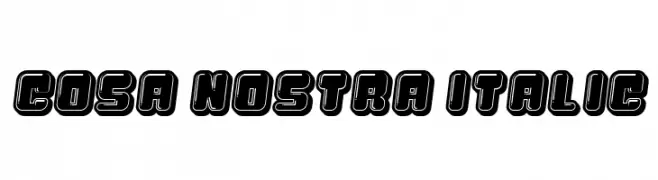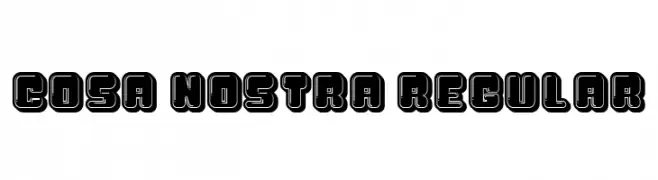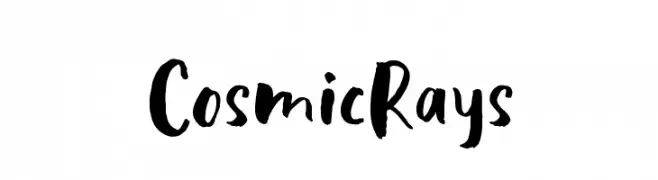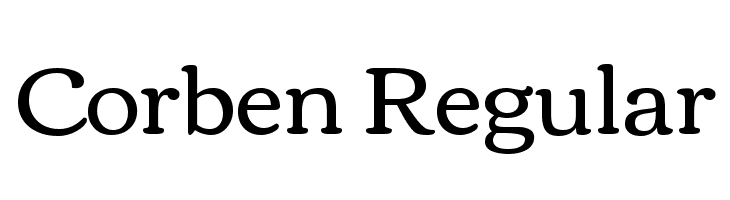
A bold, rounded font with a playful yet sophisticated style.
A bold, decorative font with playful curves and sharp edges.
A bold, decorative font with an outline effect and whimsical, theatrical style.
A bold, decorative font with a whimsical, circus-inspired style.
A rugged, textured font with a vintage, woodcut print style.
A modern, geometric font with a futuristic and bold design.
A bold, italicized font with a three-dimensional, decorative style.
A bold, decorative font with a three-dimensional effect and thick outlines.
A bold, decorative font with intricate swirls and flourishes.
A bold, brush-style font with an energetic and artistic flair.